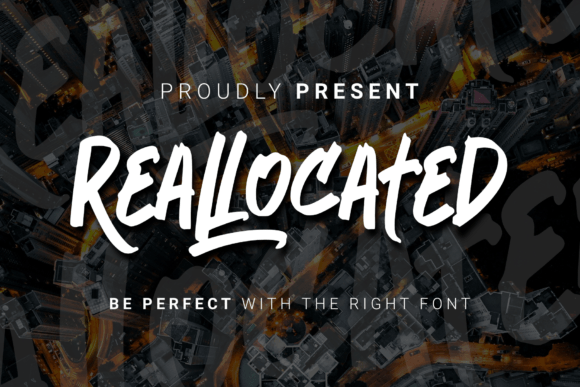
Get ready to transform your designs with Reallocated, the coolest display font that adds a touch of uniqueness to every project. Crafted by the talented DUMADI, this font is not just a collection of letters; it's an expression of creativity and innovation.
Welcome to the world of Reallocated, where random styles dance in perfect harmony, creating designs that speak volumes. Unleash your imagination and let Reallocated take center stage in your posters, headlines, and any design that craves a distinctive flair.
Reallocated is not just a font; it's an experience. Its captivating style draws the eye, leaving a lasting impression on your audience. But be warned, this font is not for the faint of heart. Its varying letter heights make it best suited for headers and eye-catching designs, rather than long bodies of text.
Attention to detail is key with Reallocated. The letter spacing between words can be inconsistent, so don't let haste compromise your work. Take your time, scrutinize your designs, and ensure everything aligns perfectly before hitting publish or sharing on social media.